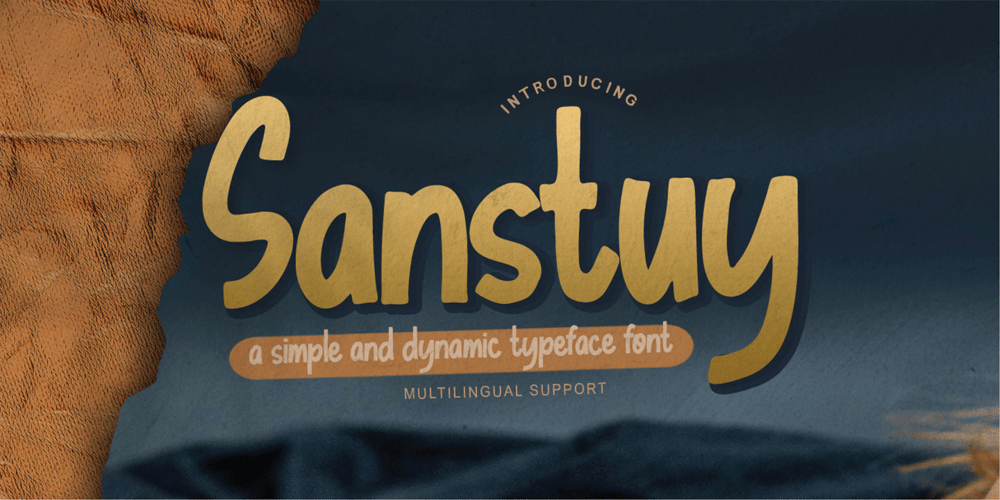
Sanstuy
Sanstuy font
Sanstuy Font Family was designed by Abdul Malik Wisnu, Anang Fibriyanto and published by Gassstype. Sanstuy contains 1 styles and family package options. Sanstuy – Dynamic Typeface Font with a natural style and dramatic movement. Crafted manually with love and passion, This font is great for your next creative project such as logos, printed quotes, invitations, cards, product packaging, headers, Logotype, Letterhead, Poster, Label, and etc.